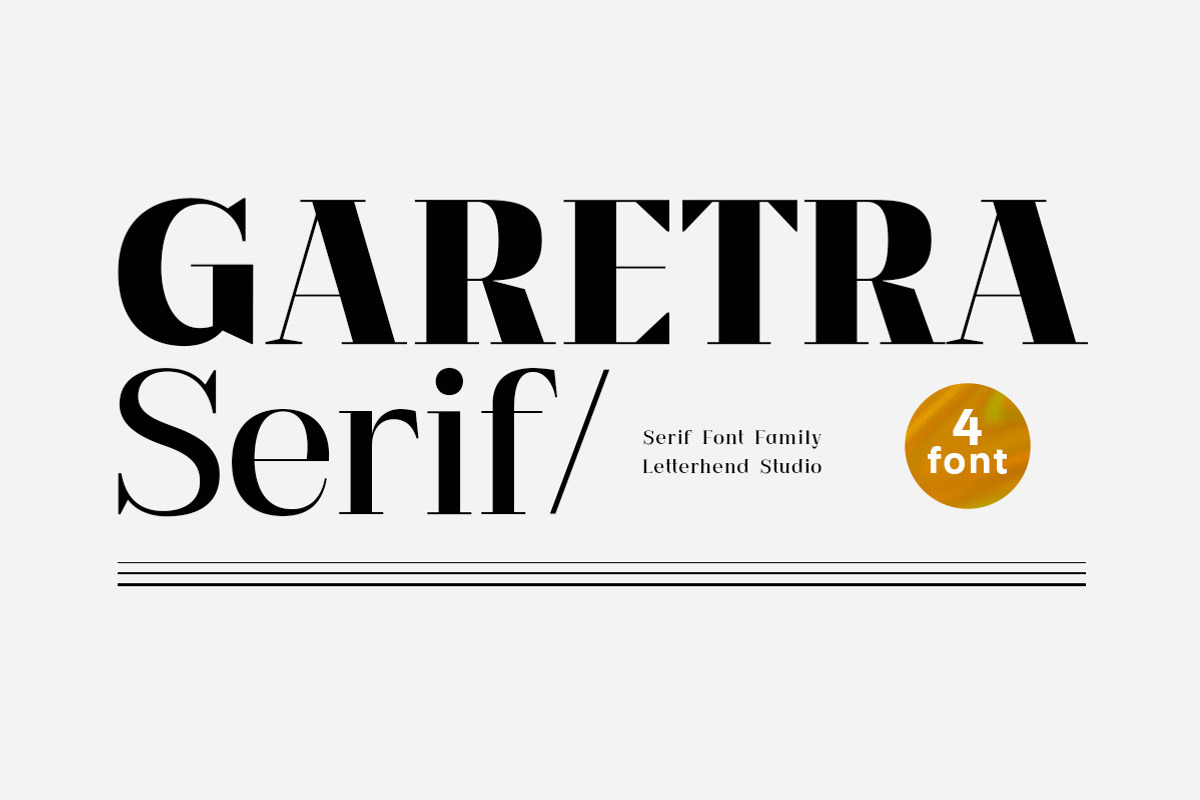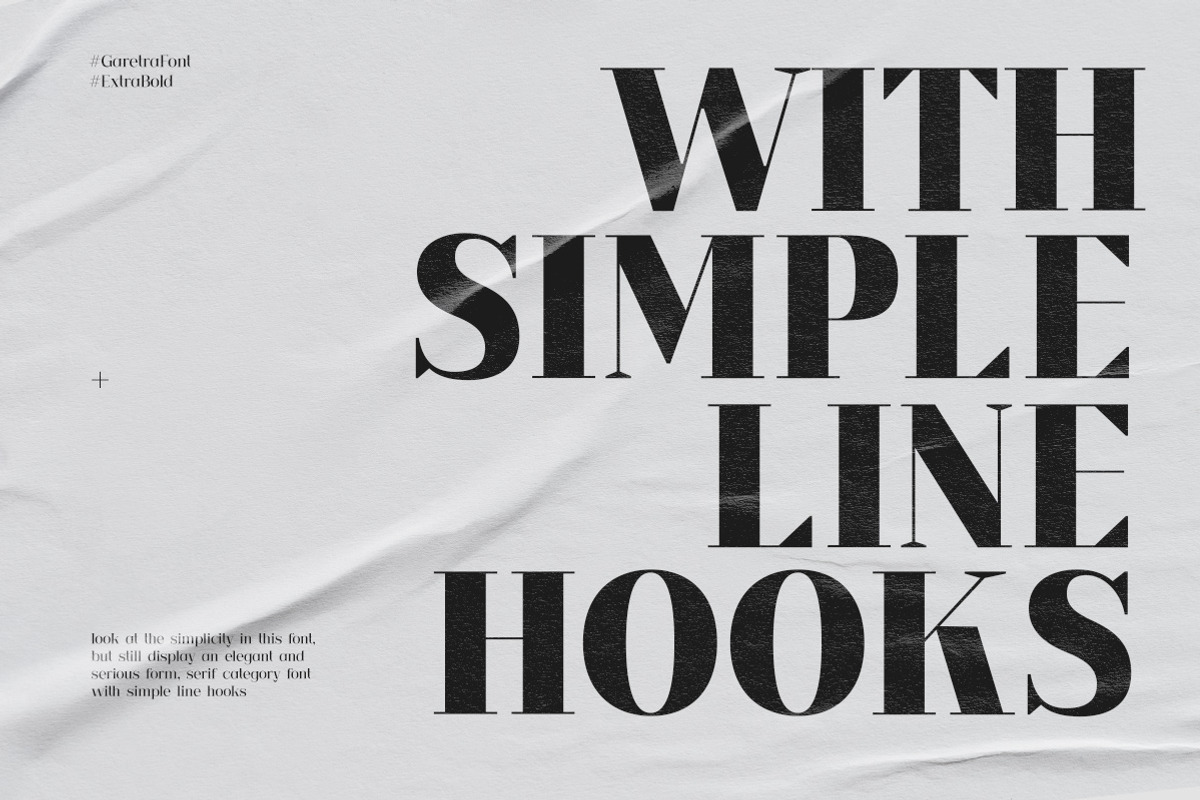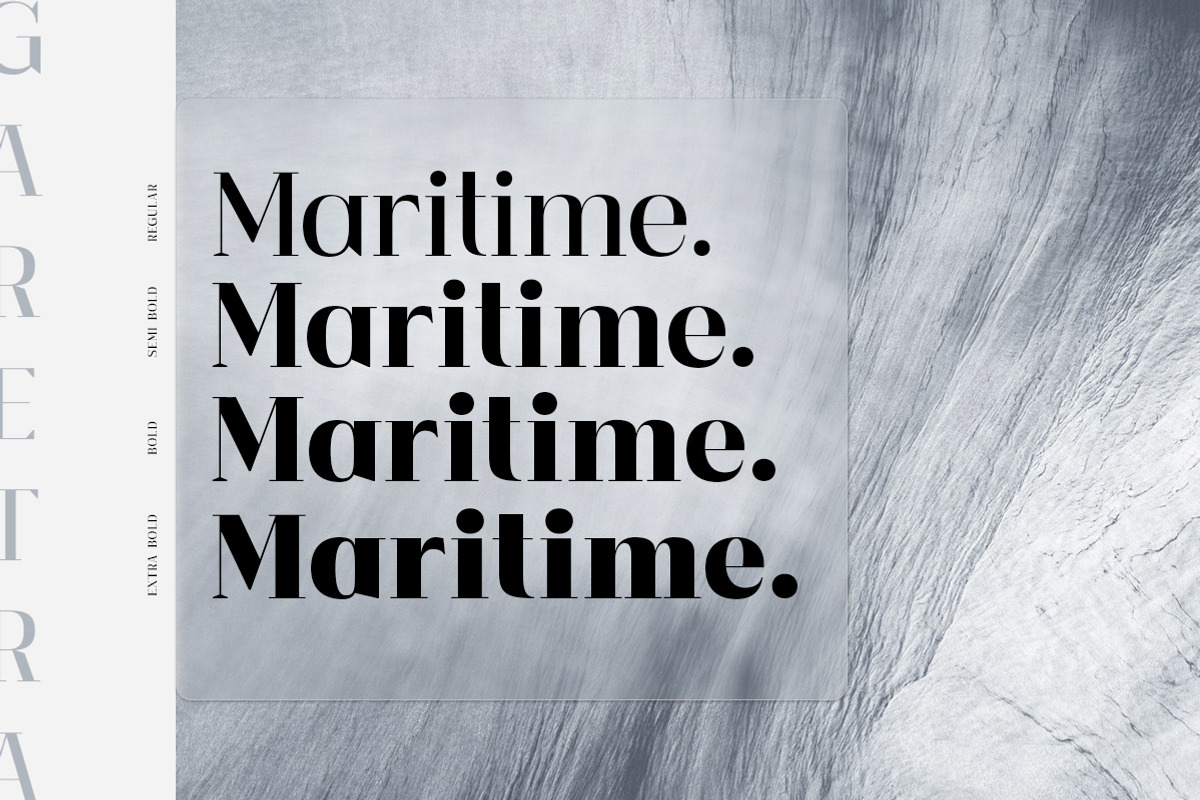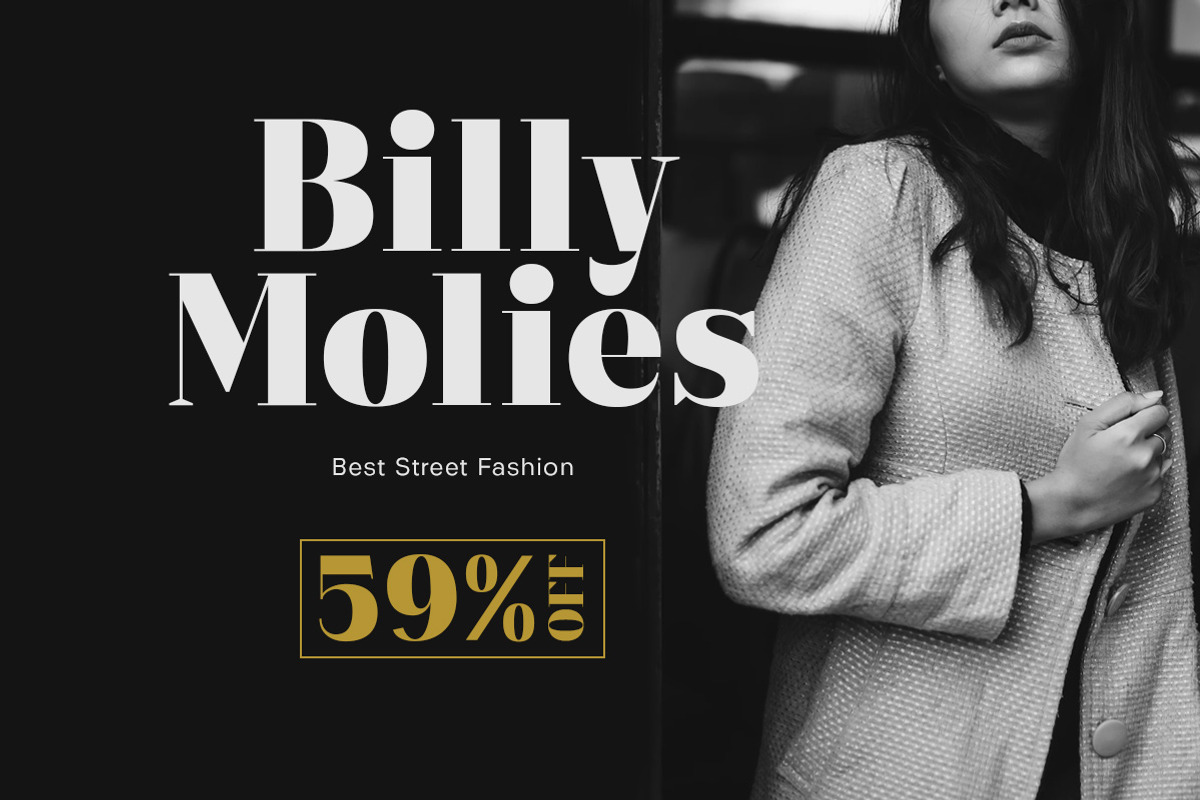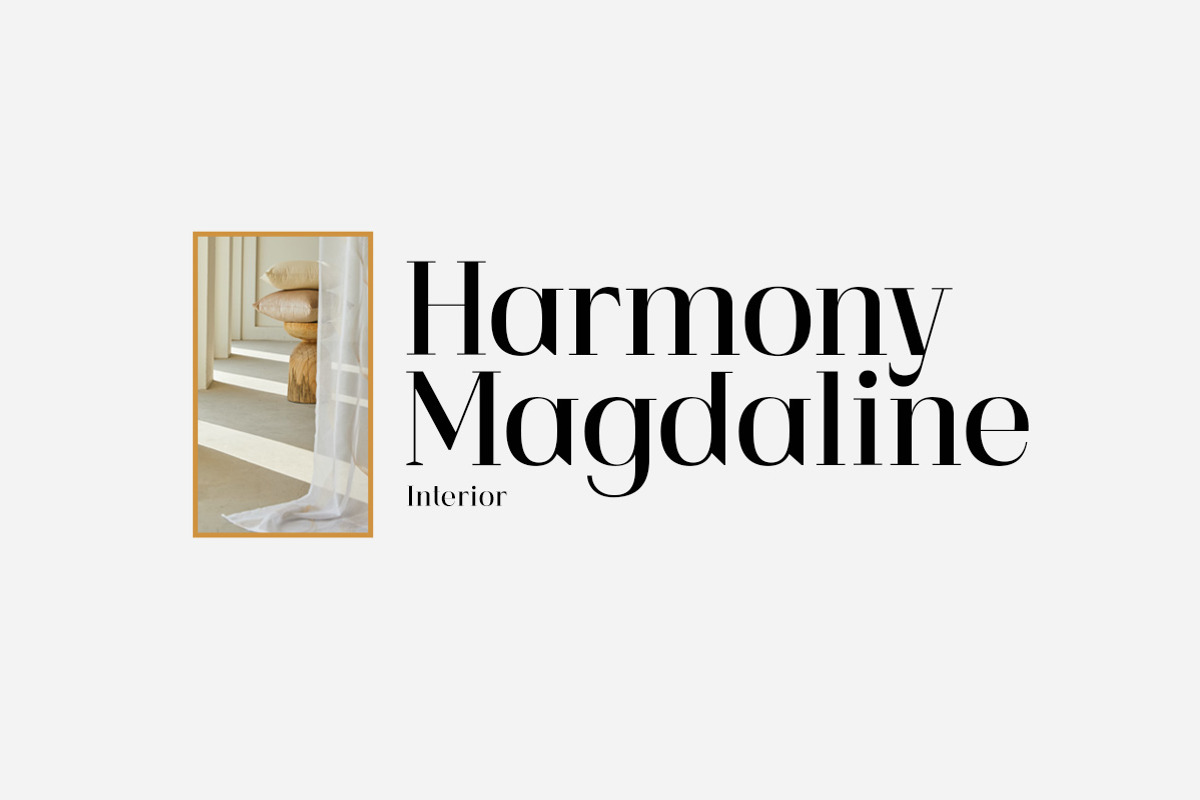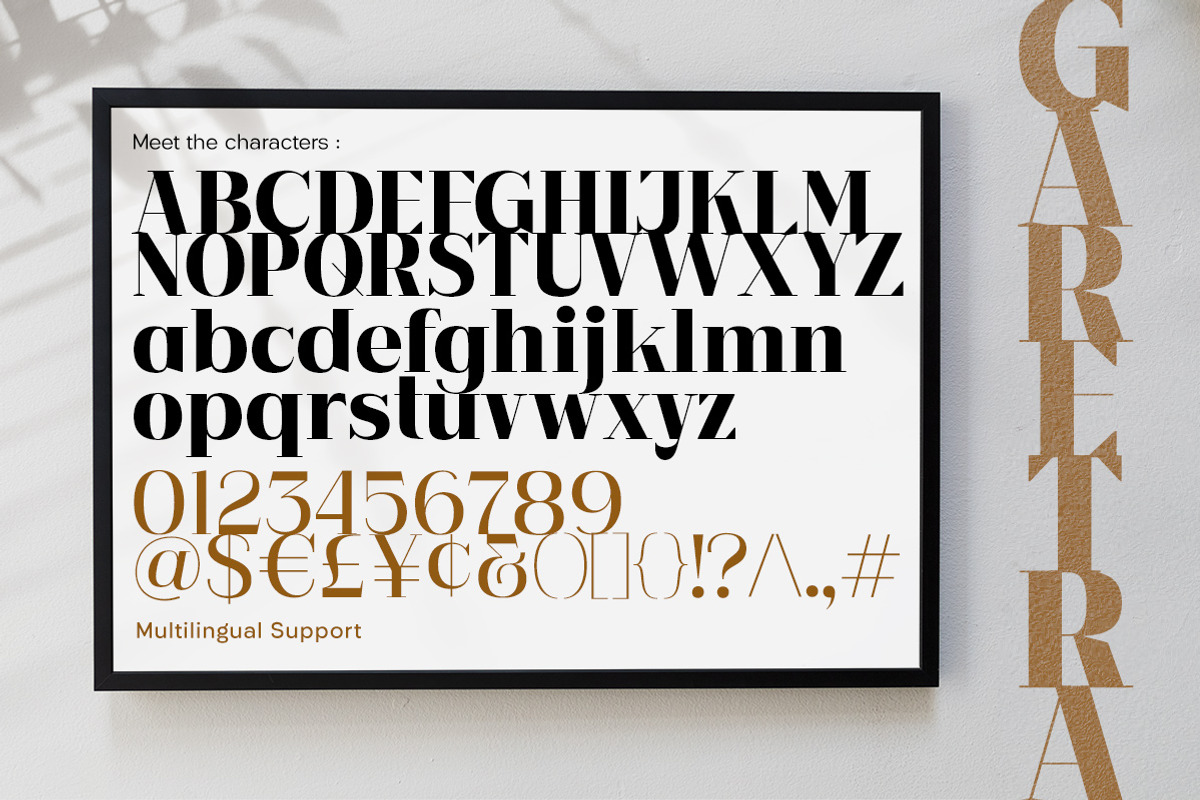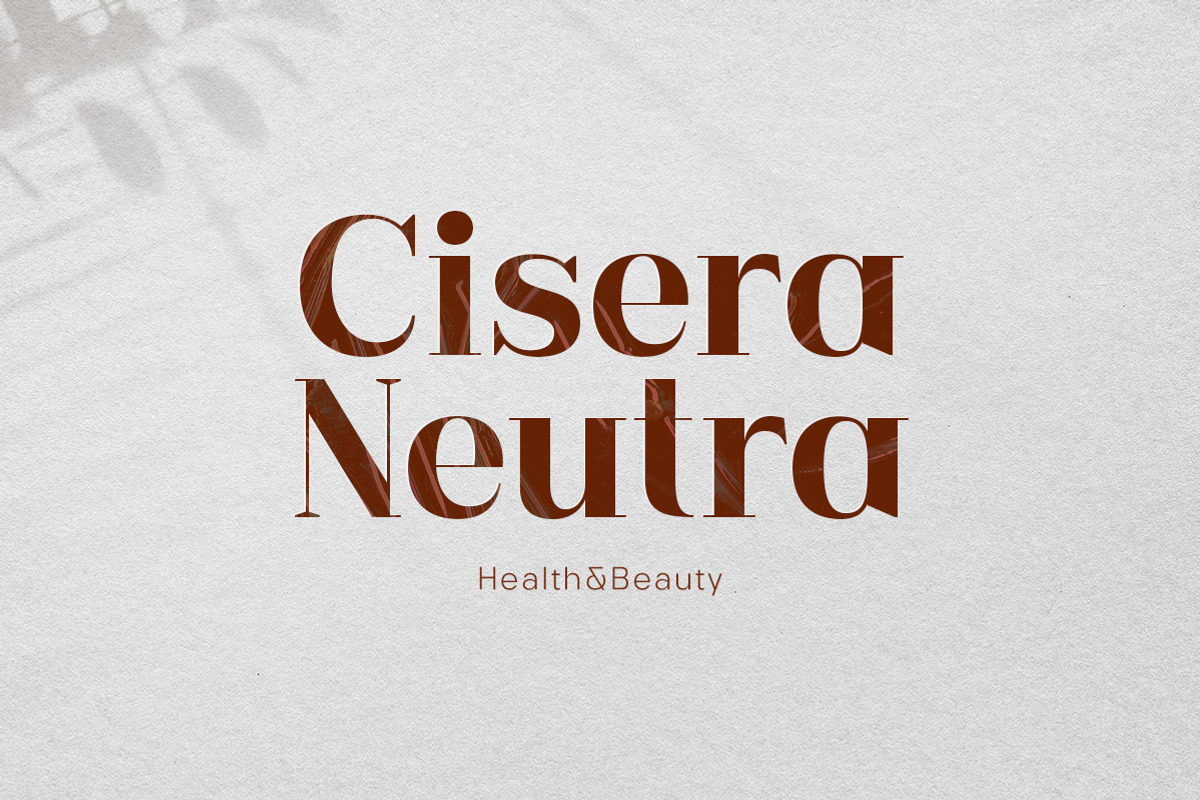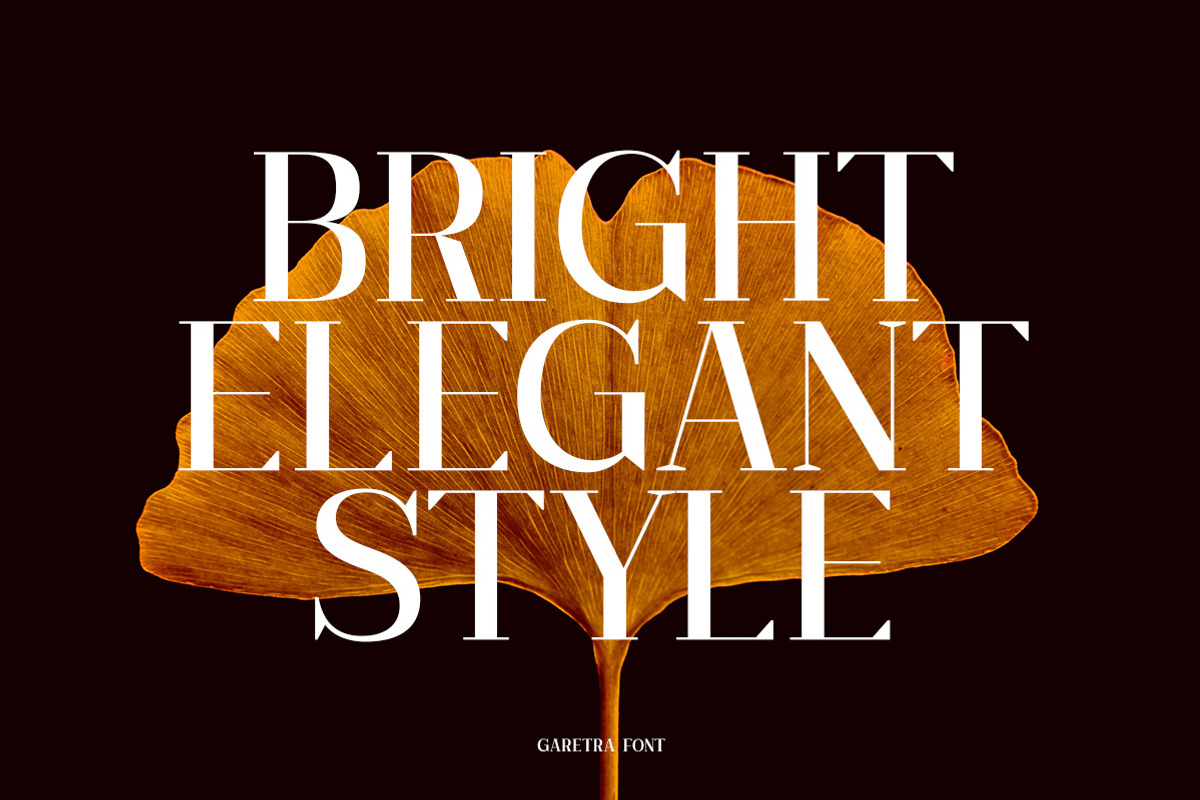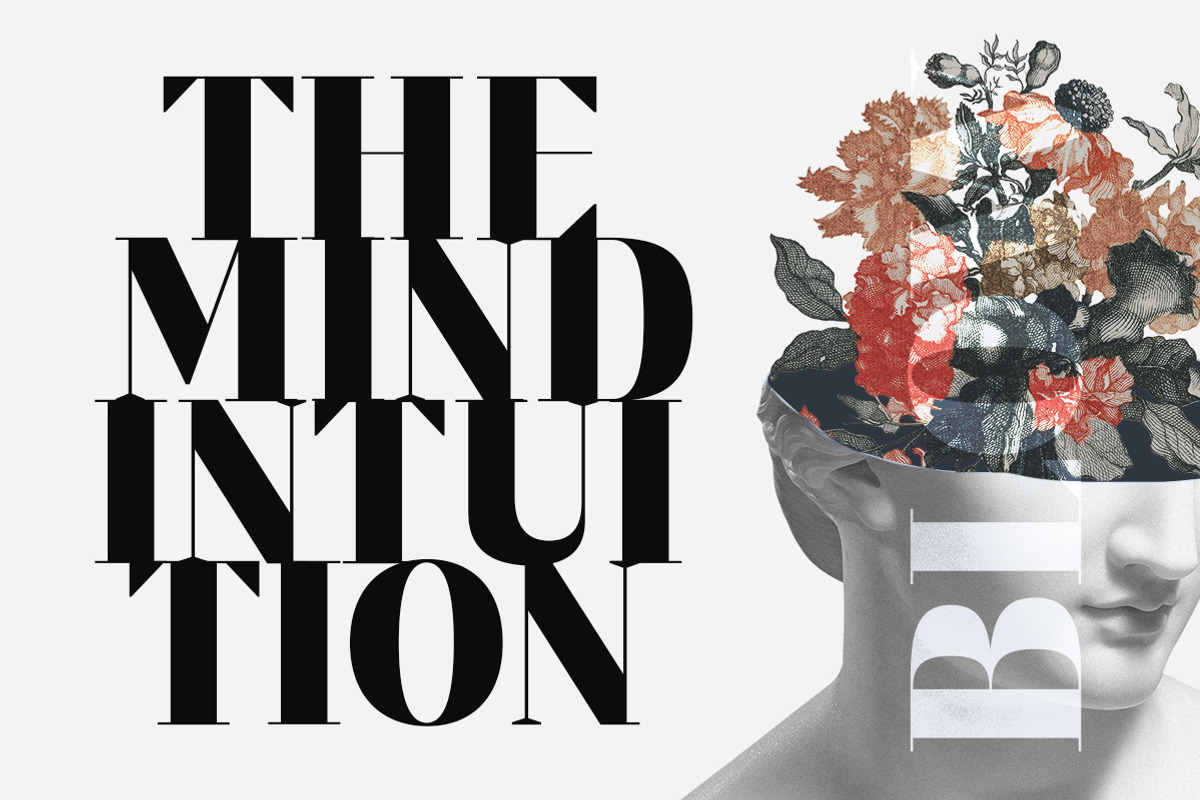
Garetra Serif Font Family
Garetra Serif s a sophisticated serif with many weight you can choose. It has 4 weight styles which you can play around to match your project, whether for a standout headline, or for a tagline, you name it. Perfect to be applied to the other various formal forms such as invitations, labels, logos, magazines, books, greeting / wedding cards, packaging, fashion, make up, stationery, novels, labels or any type of advertising purpose.
- alternates & ligatures